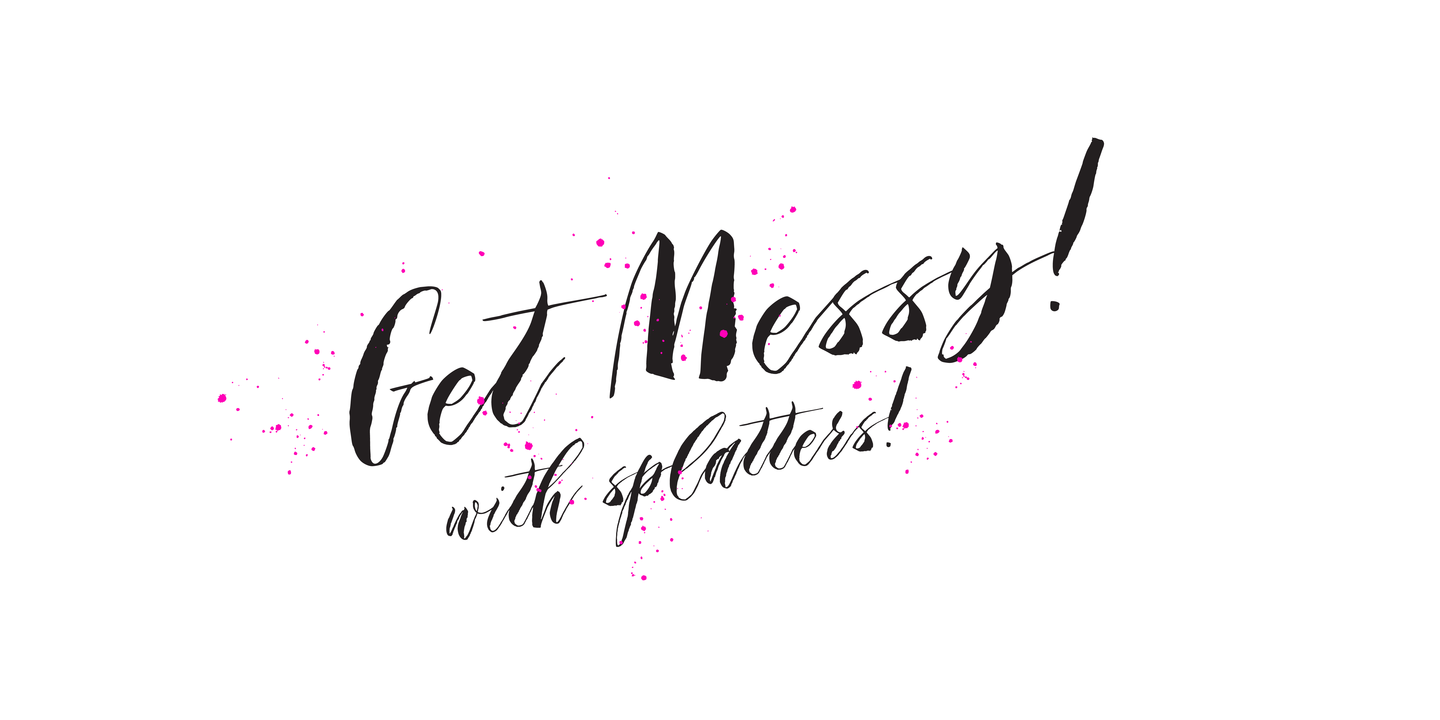
Backlash Script
Backlash Script Font
A hand painted script style font that adds instant cool factor to any project. This font strives to bring a real hand-illustrated touch to designs as the variation in line weights, textures, and letter forms creates a one of a kind final piece. These variations also create an energetic movement throughout words, and paired with a variety of ink splatters, you’re ready to backlash.